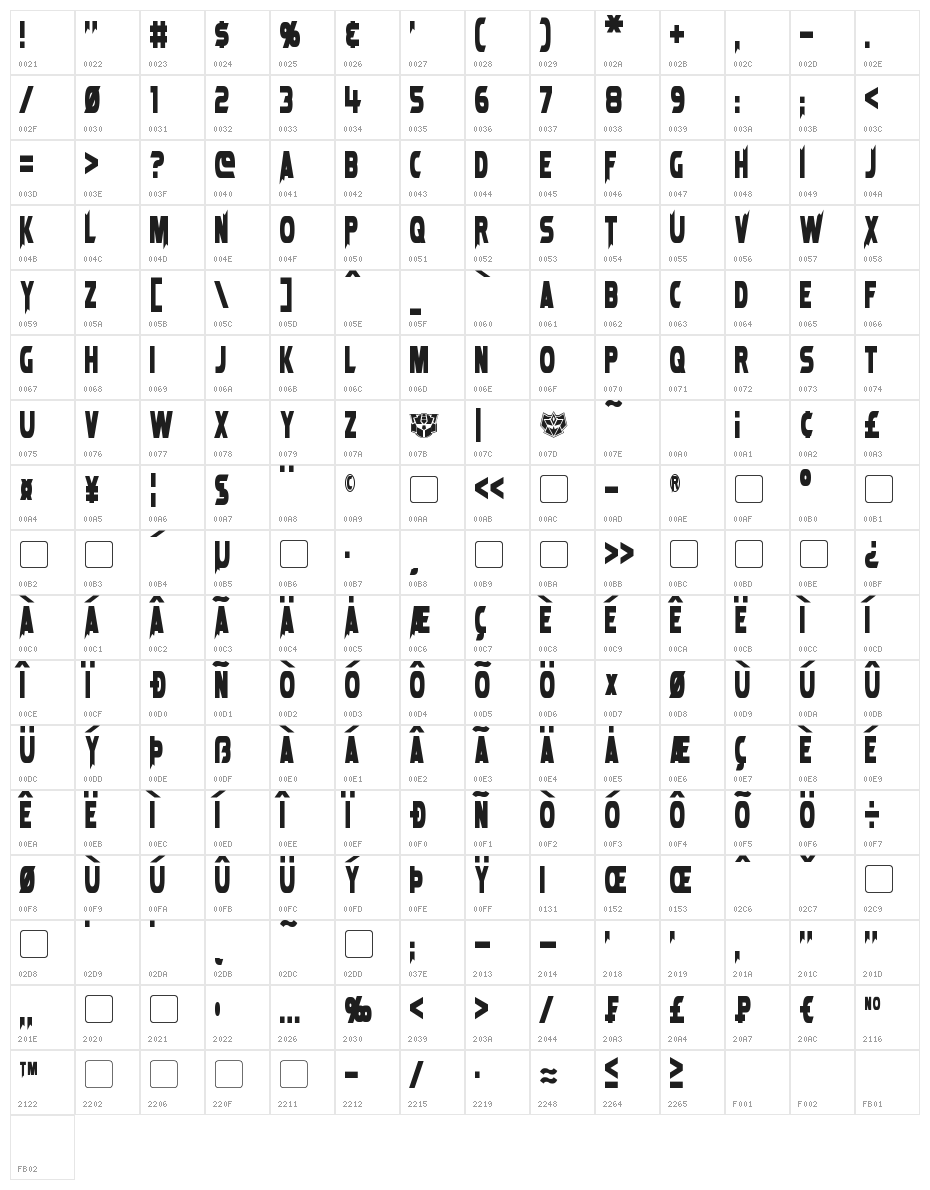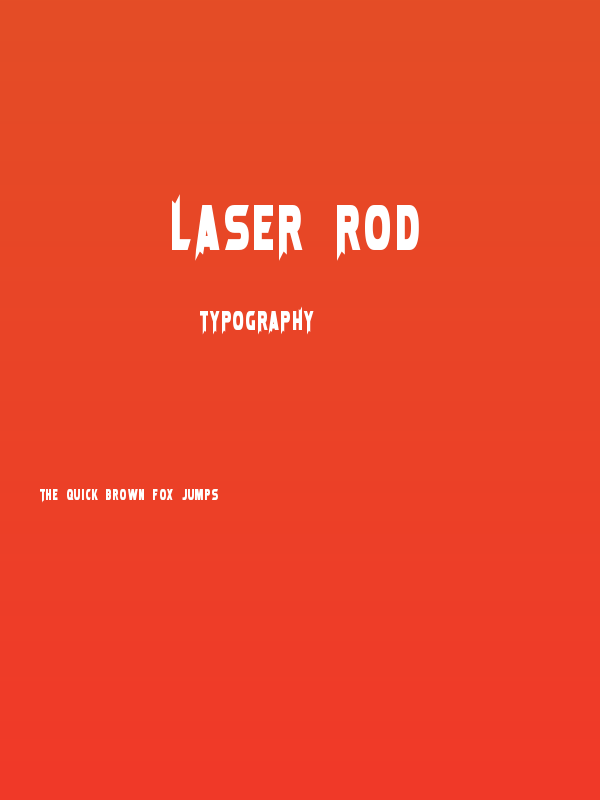
Laser Rod Font
Laser Rod Description
This font features a bold, angular design with sharp edges and a futuristic aesthetic. The uppercase letters are distinct with a blocky appearance, while the lowercase letters maintain a consistent style that complements the uppercase. The numerals are equally bold, ensuring readability and impact. Special characters are designed to match the overall geometric theme, making them suitable for various applications. The font's strong presence and unique style make it ideal for attention-grabbing designs.
| Proposed Projects | Ideal for sci-fi themed projects, video game titles, posters, and branding that requires a modern and bold look. |